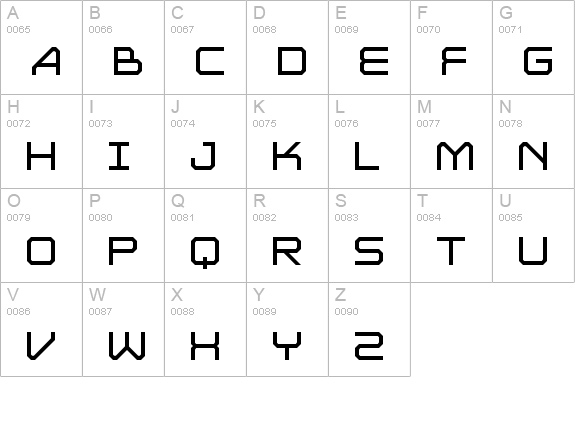
Astrolyte Font Details
Astrolyte font is a unique and futuristic typeface that combines sleek modernity with a touch of cosmic inspiration. Its clean lines and elegant curves give a sense of sophistication, making it perfect for a variety of design projects. Whether you're creating a logo, branding materials, or even a poster for a space-themed event, Astrolyte font will add a stylish and contemporary flair. What sets Astrolyte font apart is not only its striking visual appeal but also its versatility. It can be used for both headlines and body text, making it a reliable choice for all your typographic needs. Plus, its wide range of weights and styles ensure that you'll find the perfect variation to suit your project. The best part? Astrolyte font is completely free to download at FontsMarket.com. So go ahead and elevate your designs with this exceptional typeface today!